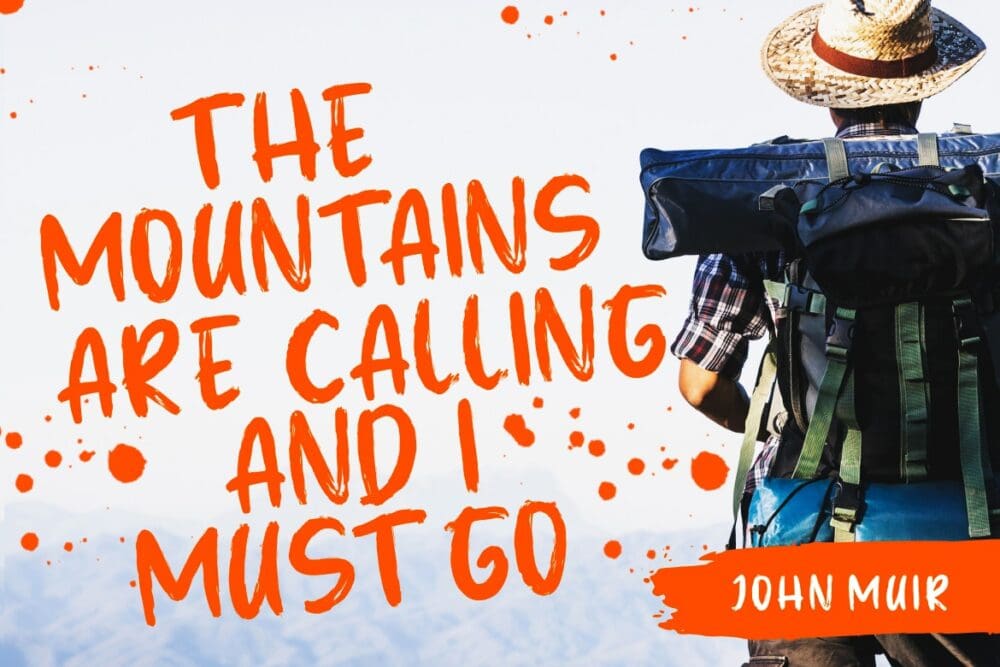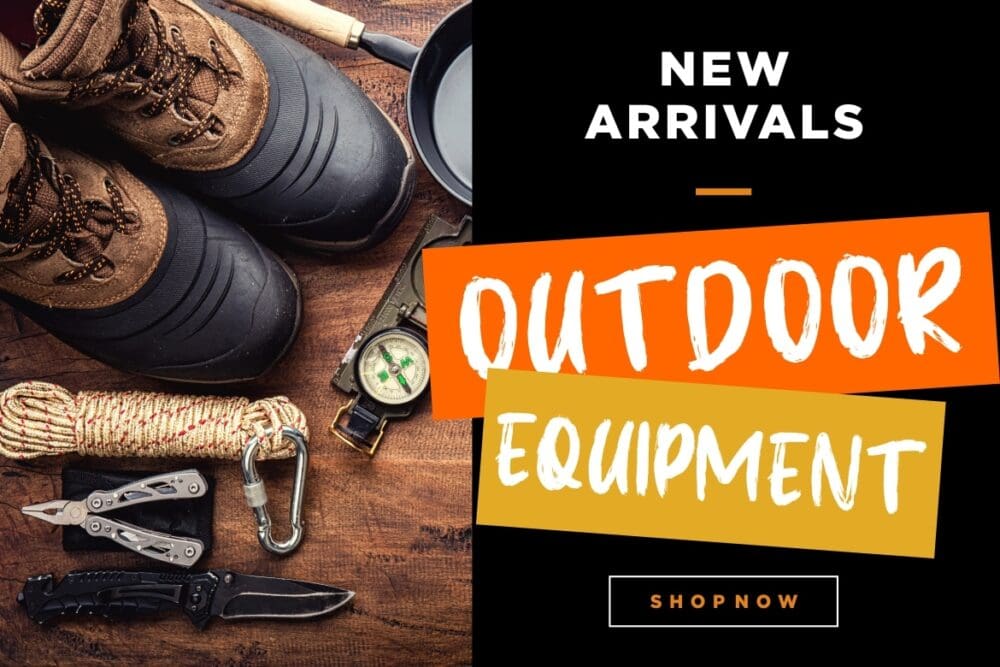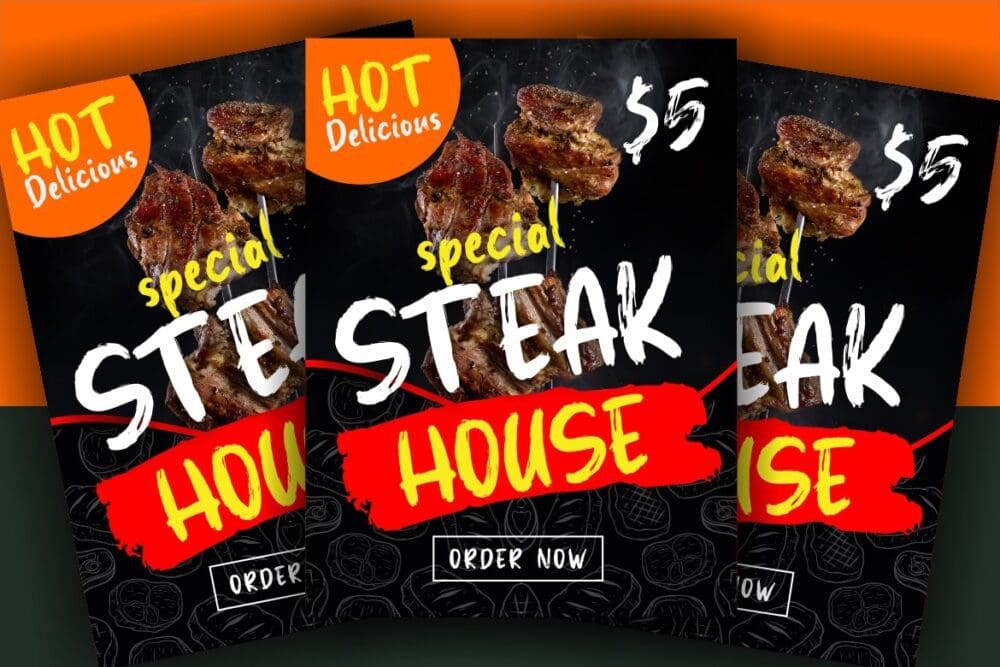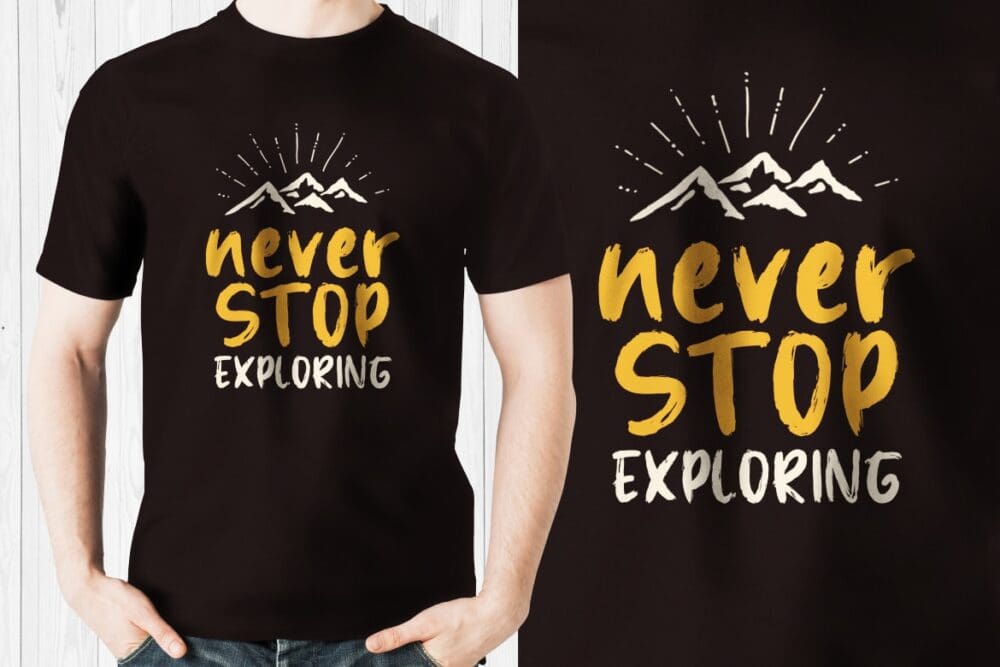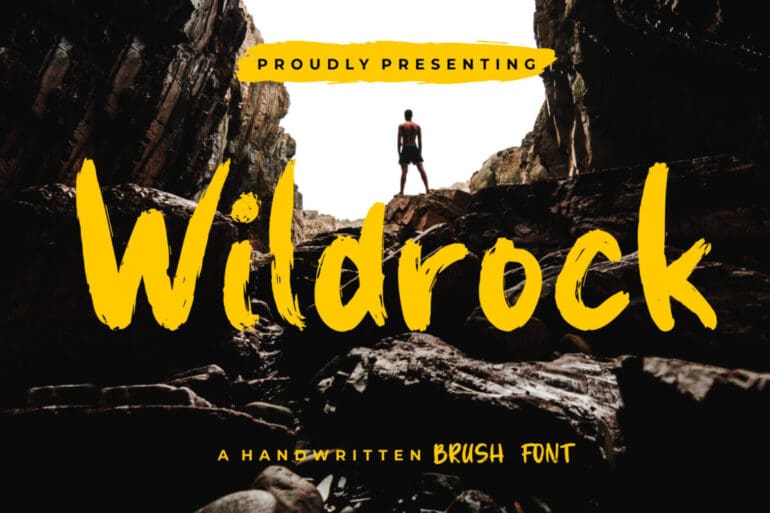
Wildrock Brush Font
Wildrock Brush Font stylish script font with a hand-drawn sketch that perfect for your amazing project. Wildrock is perfect for branding projects, logos, wedding designs, social media posts, advertisements, labels,  invitations, stationery, and any projects.